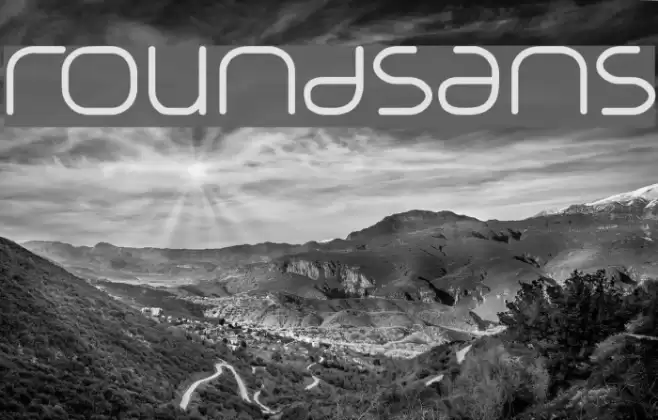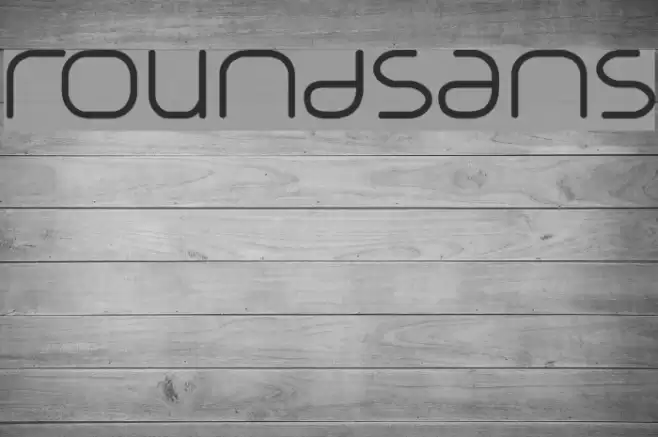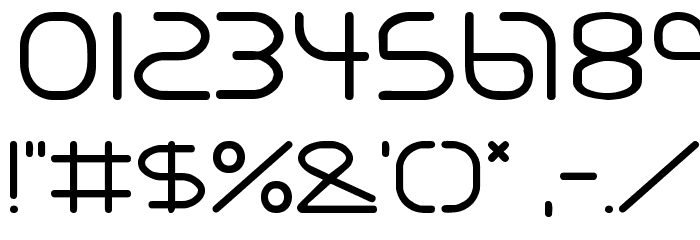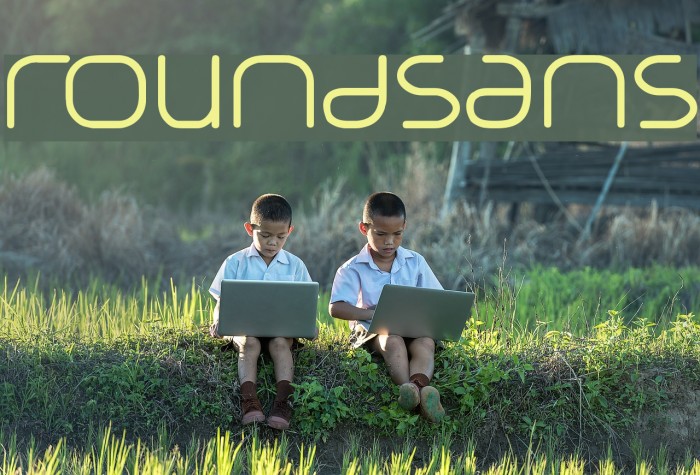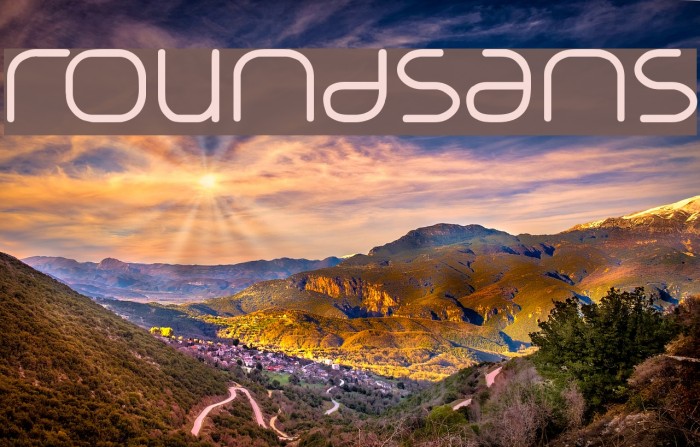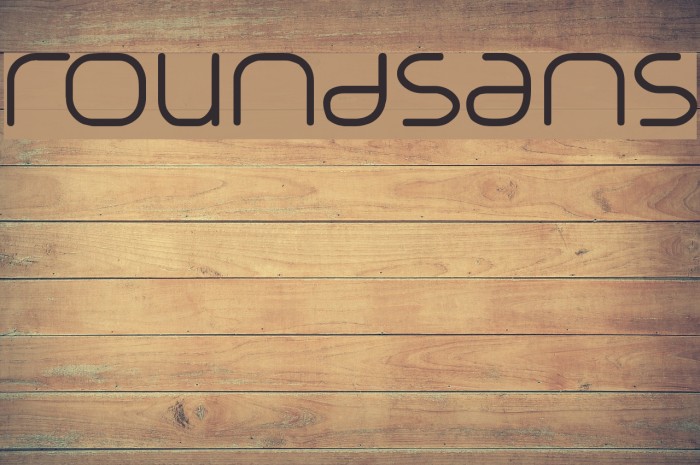
RoundSans Font
RoundSans Description
This font features a clean, modern design with rounded edges and a uniform stroke width, creating a harmonious and approachable appearance. The characters are well-balanced, with a consistent height and width that enhances readability. The rounded terminals and smooth curves give it a friendly and contemporary feel, making it suitable for a variety of design applications. The numerals and special characters maintain the same rounded aesthetic, ensuring a cohesive look across all text elements. Its simplicity and clarity make it versatile for both digital and print media.
A modern, rounded font with uniform stroke width and smooth curves from Uncategorized fonts.
- Proposed Projects: Ideal for tech branding, user interfaces, educational materials, and children's books.